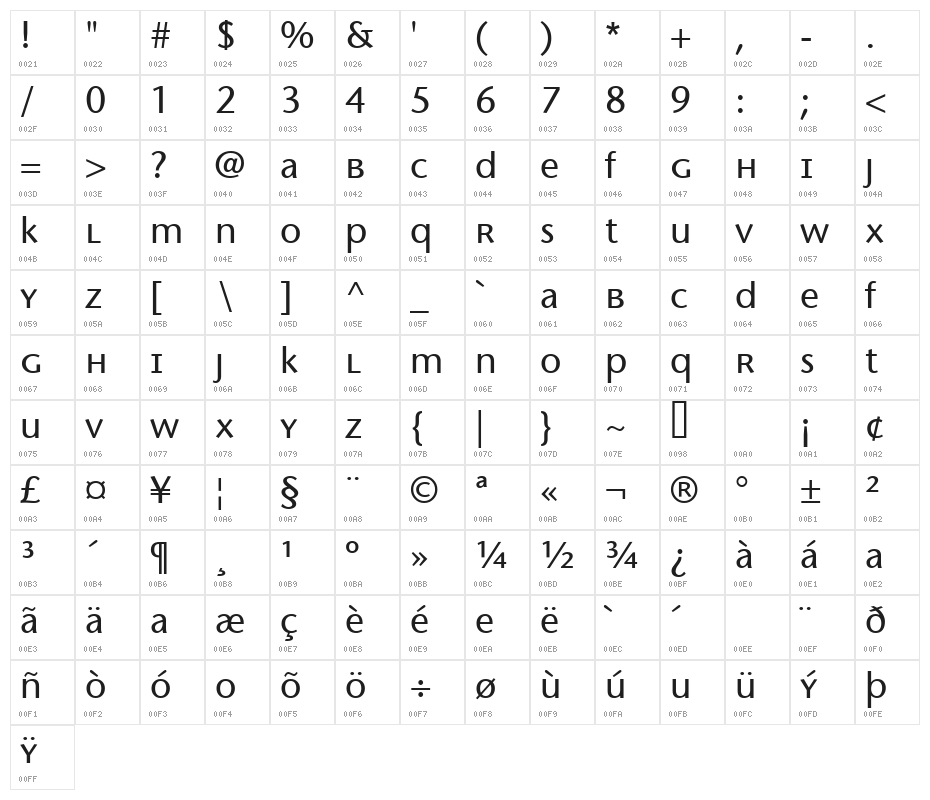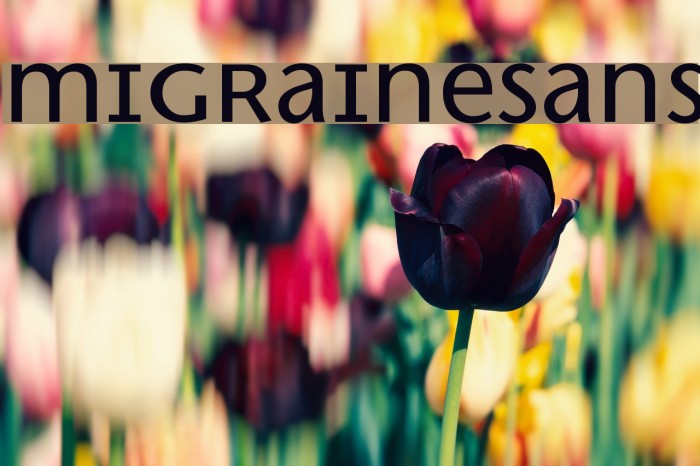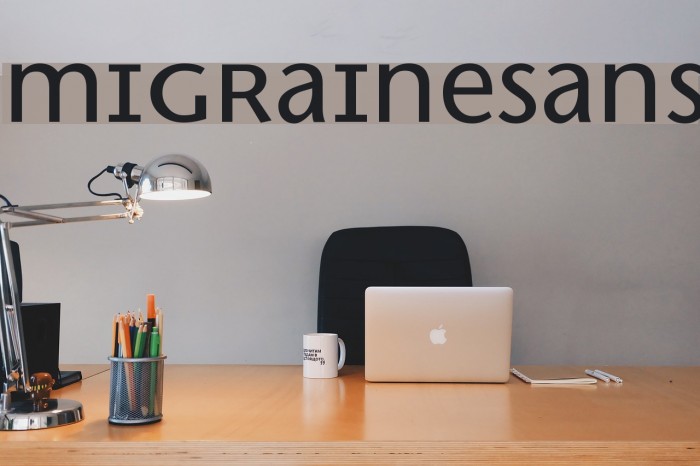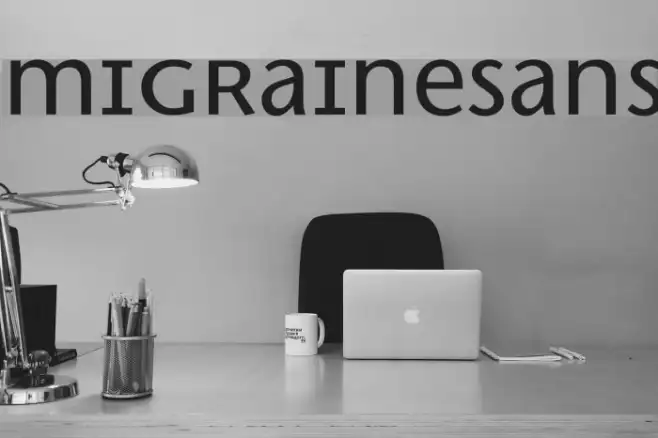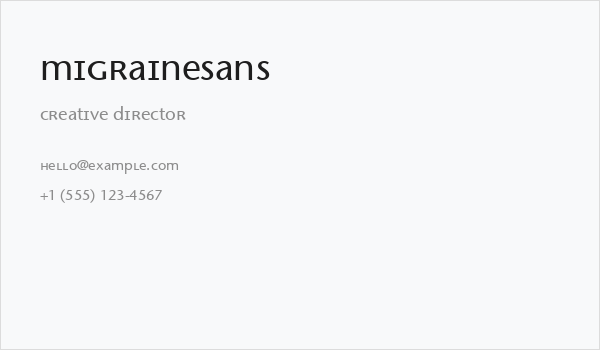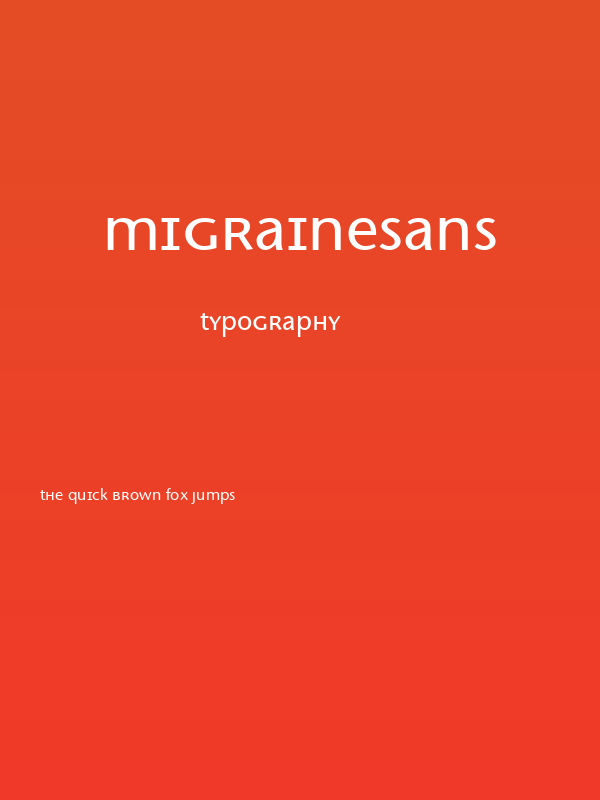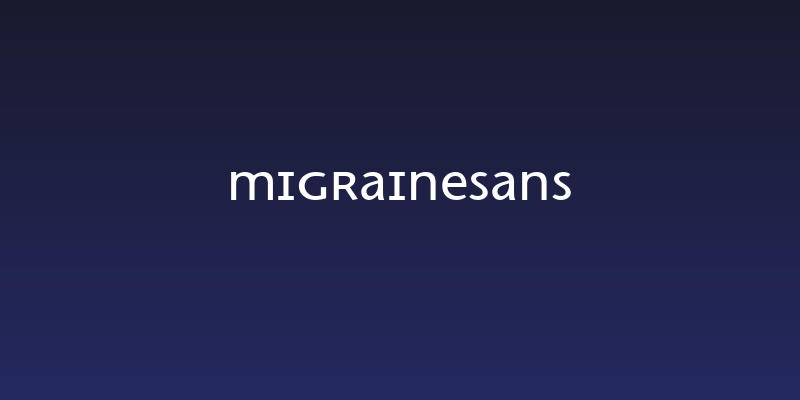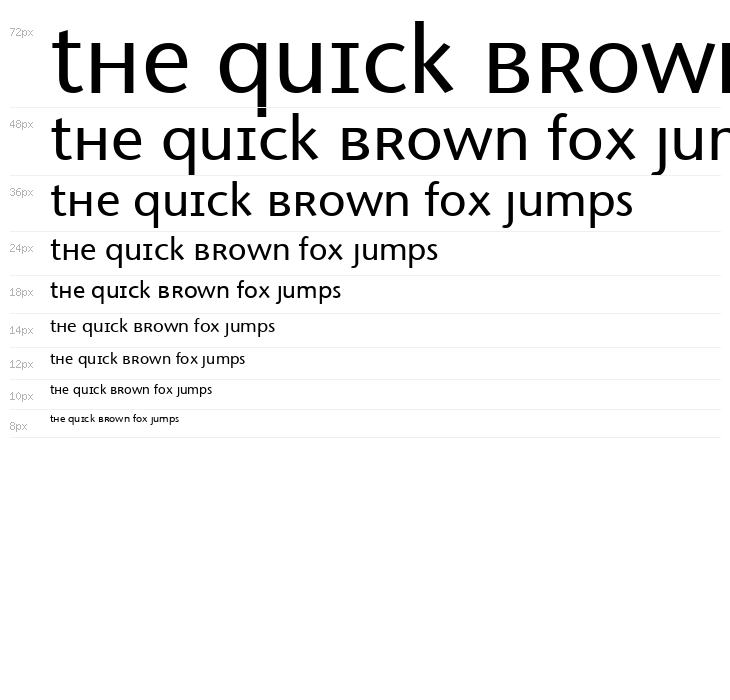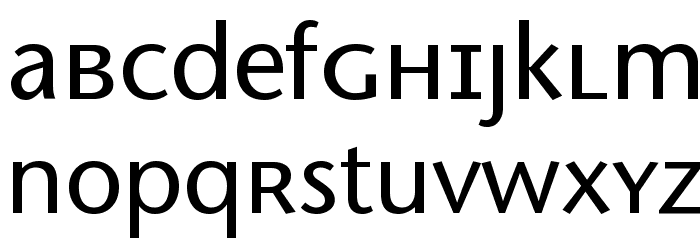
MigraineSans Font
MigraineSans Description
This font features a clean and modern sans-serif style with a geometric influence. The characters are well-balanced with a consistent stroke width, giving it a uniform appearance. The uppercase and lowercase letters are distinct, with a slight variation in curvature that adds a subtle elegance. The numerals are clear and easy to read, making them suitable for both display and text purposes. Special characters are included, maintaining the same design consistency. The overall look is sleek and professional, making it versatile for various design needs.